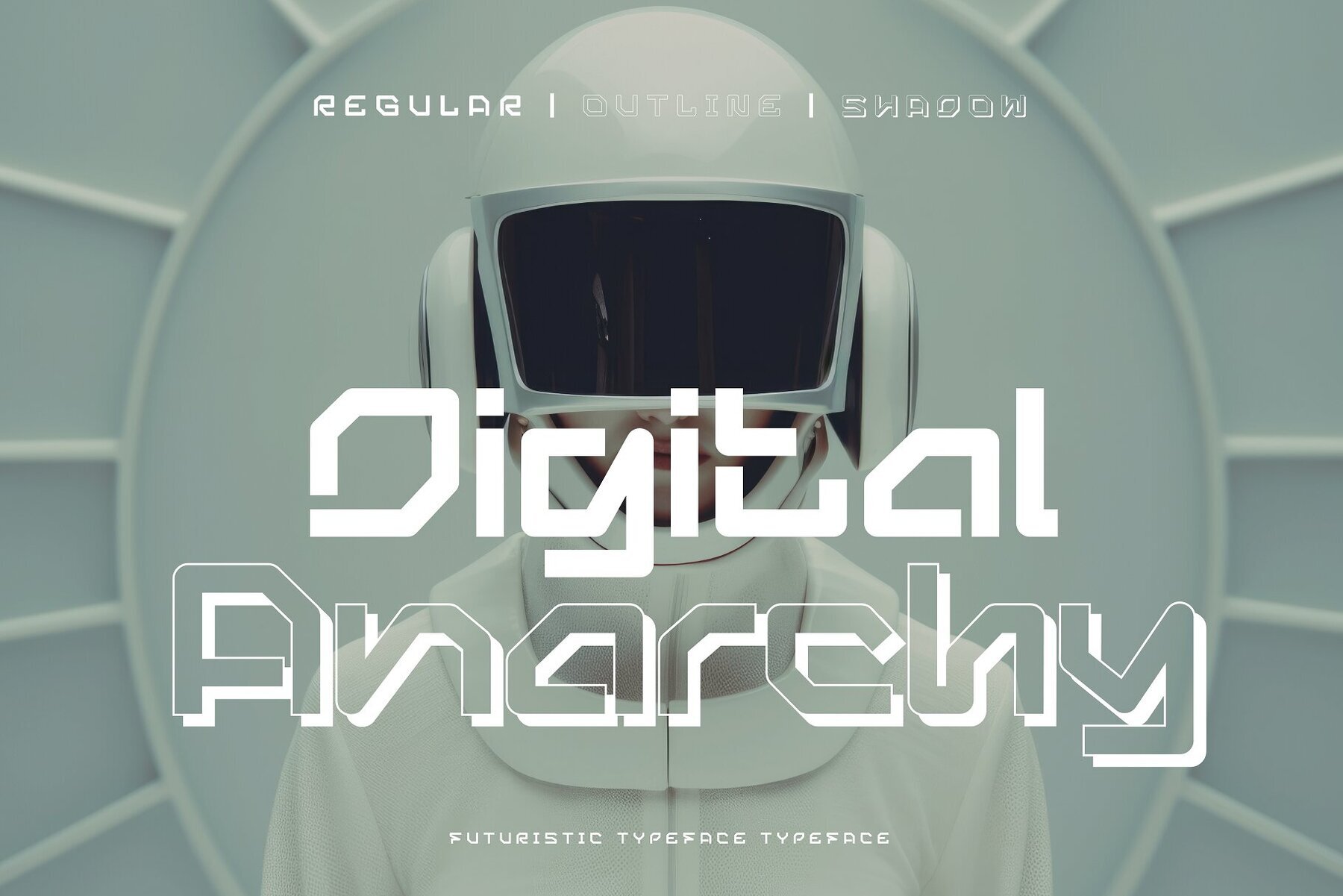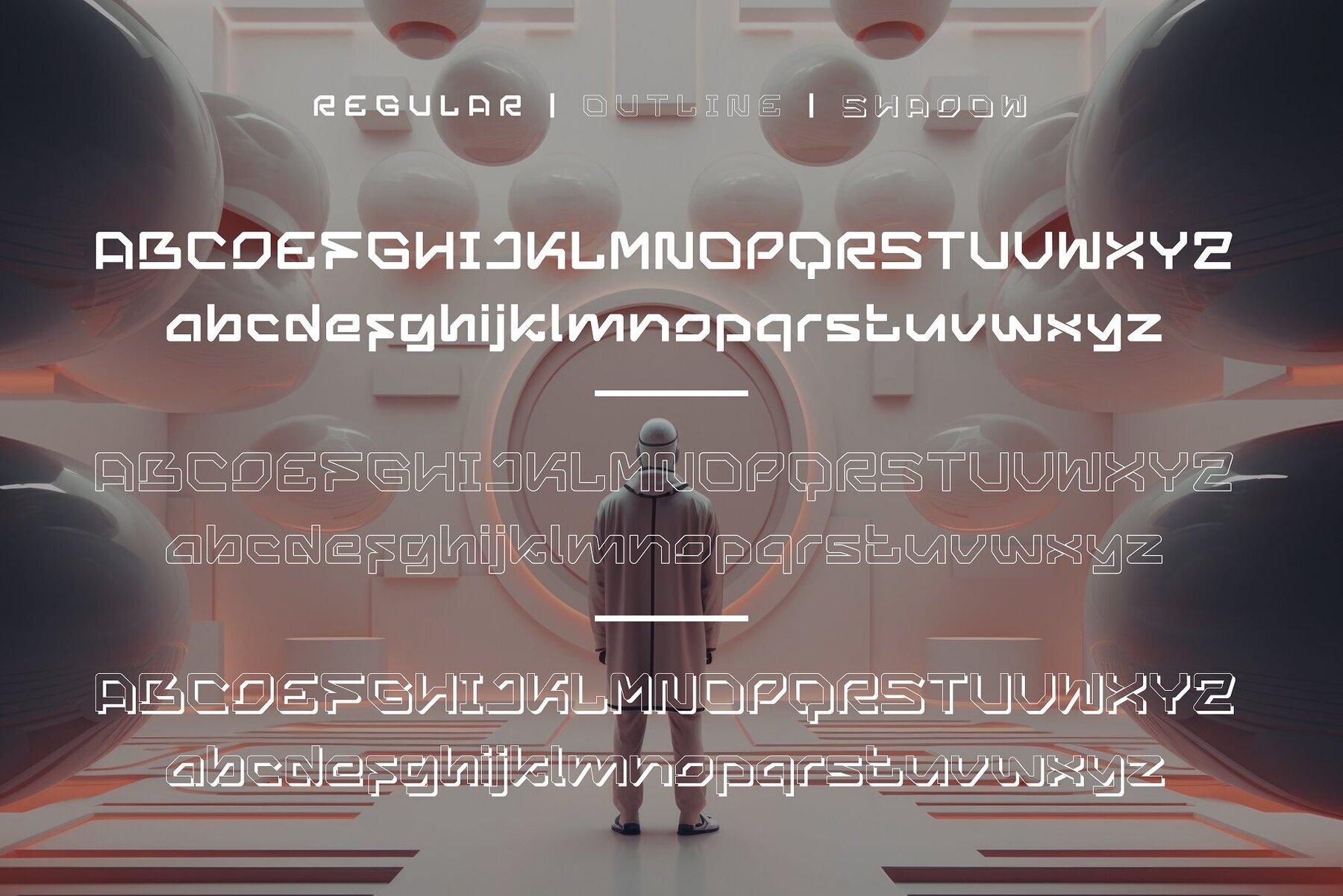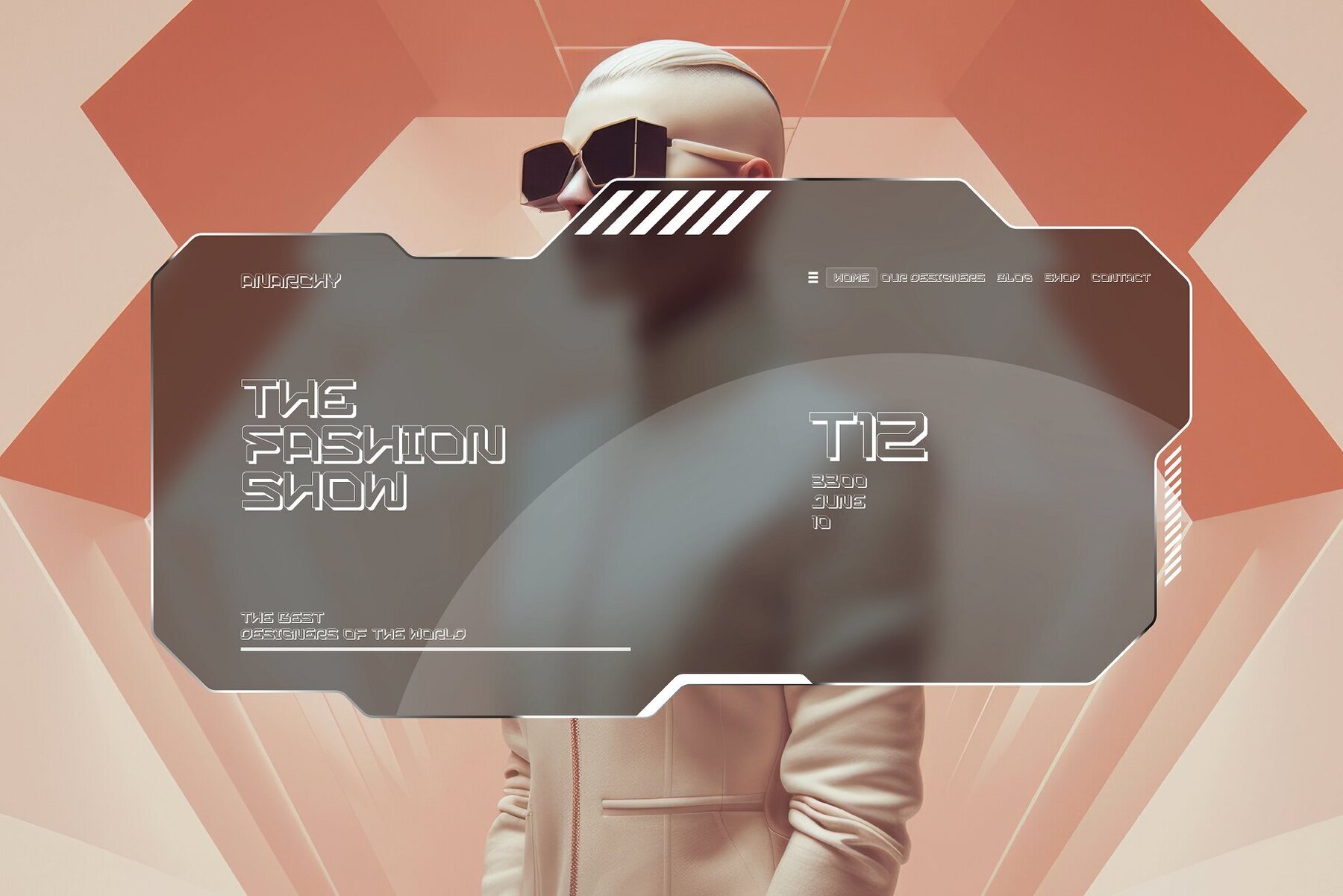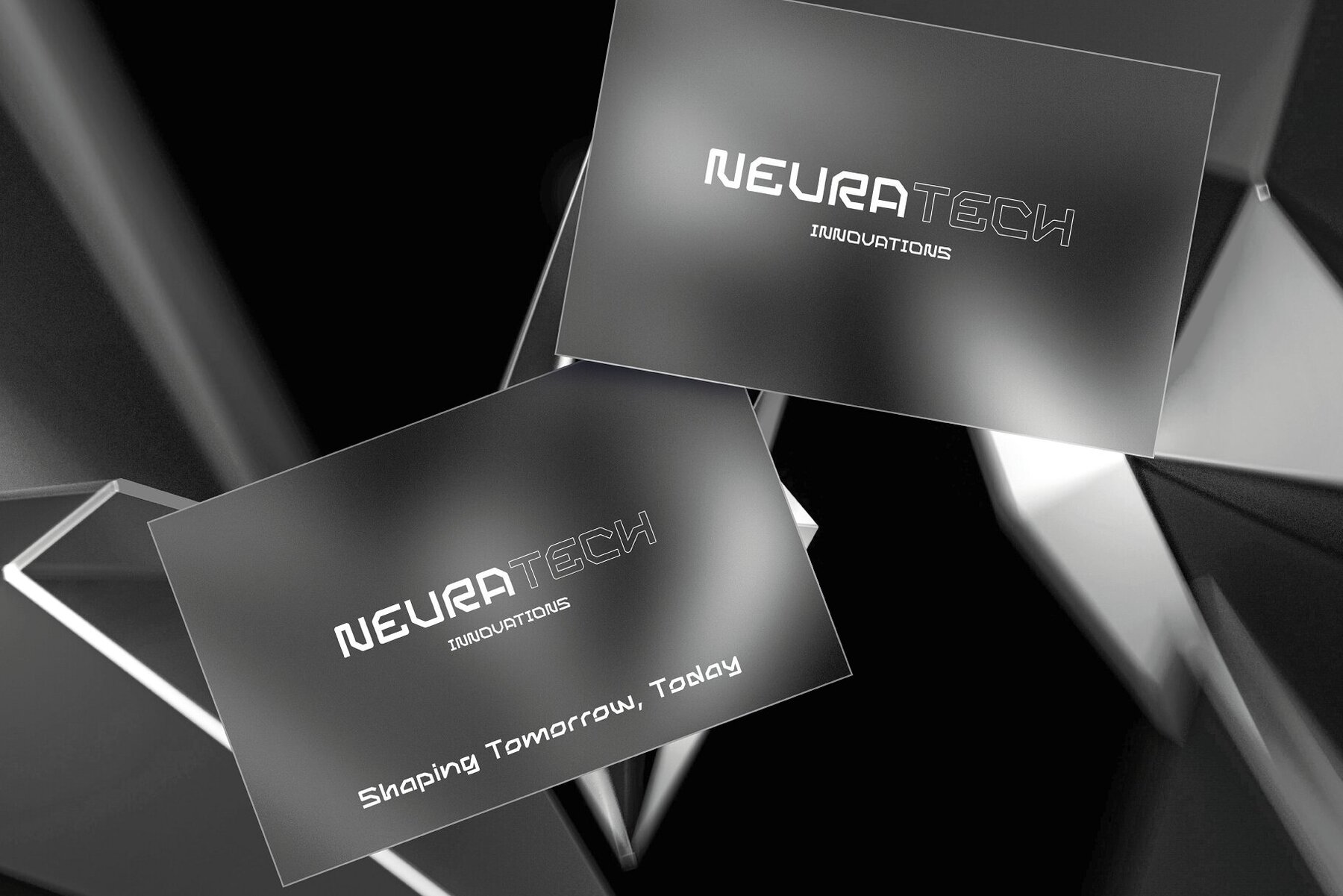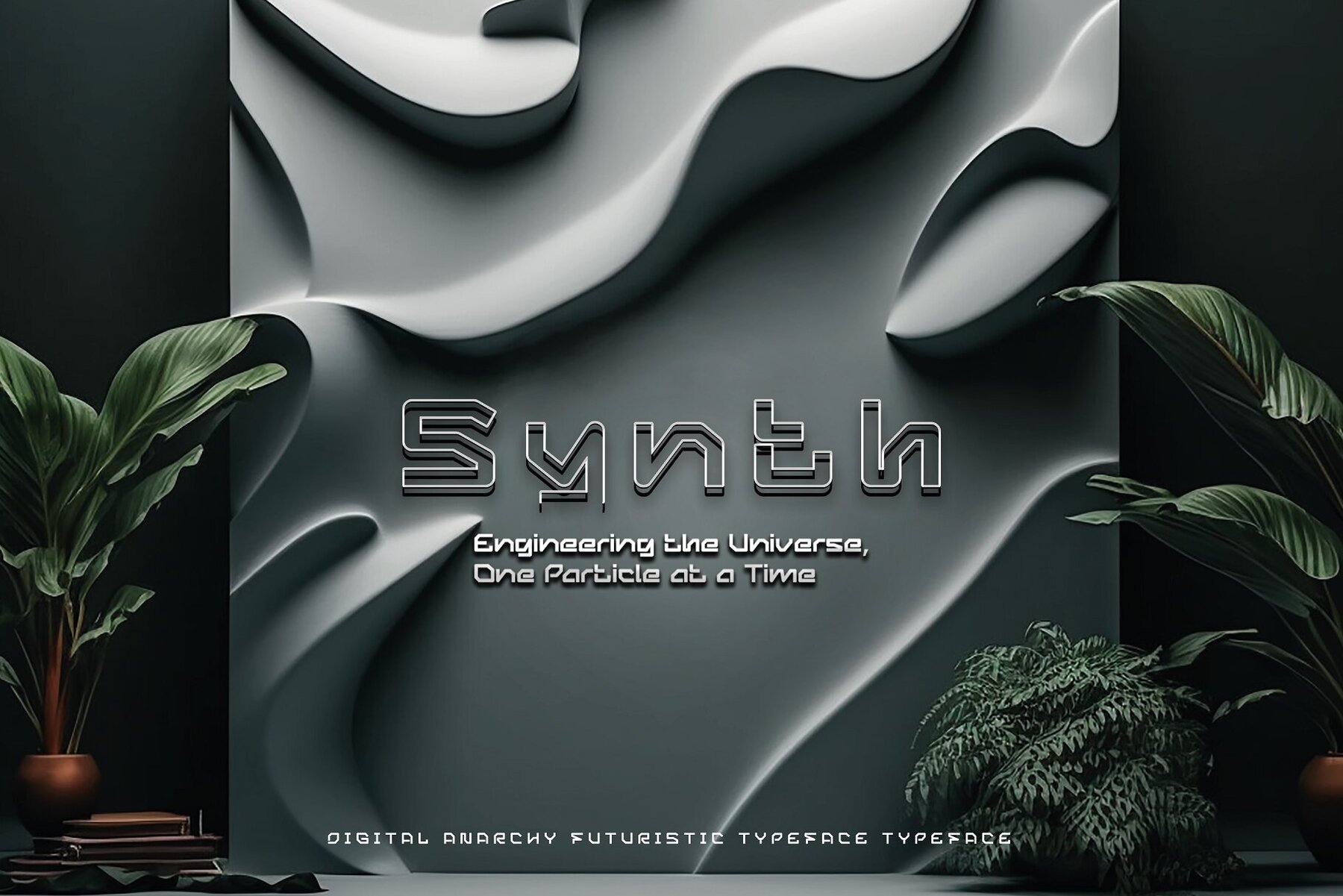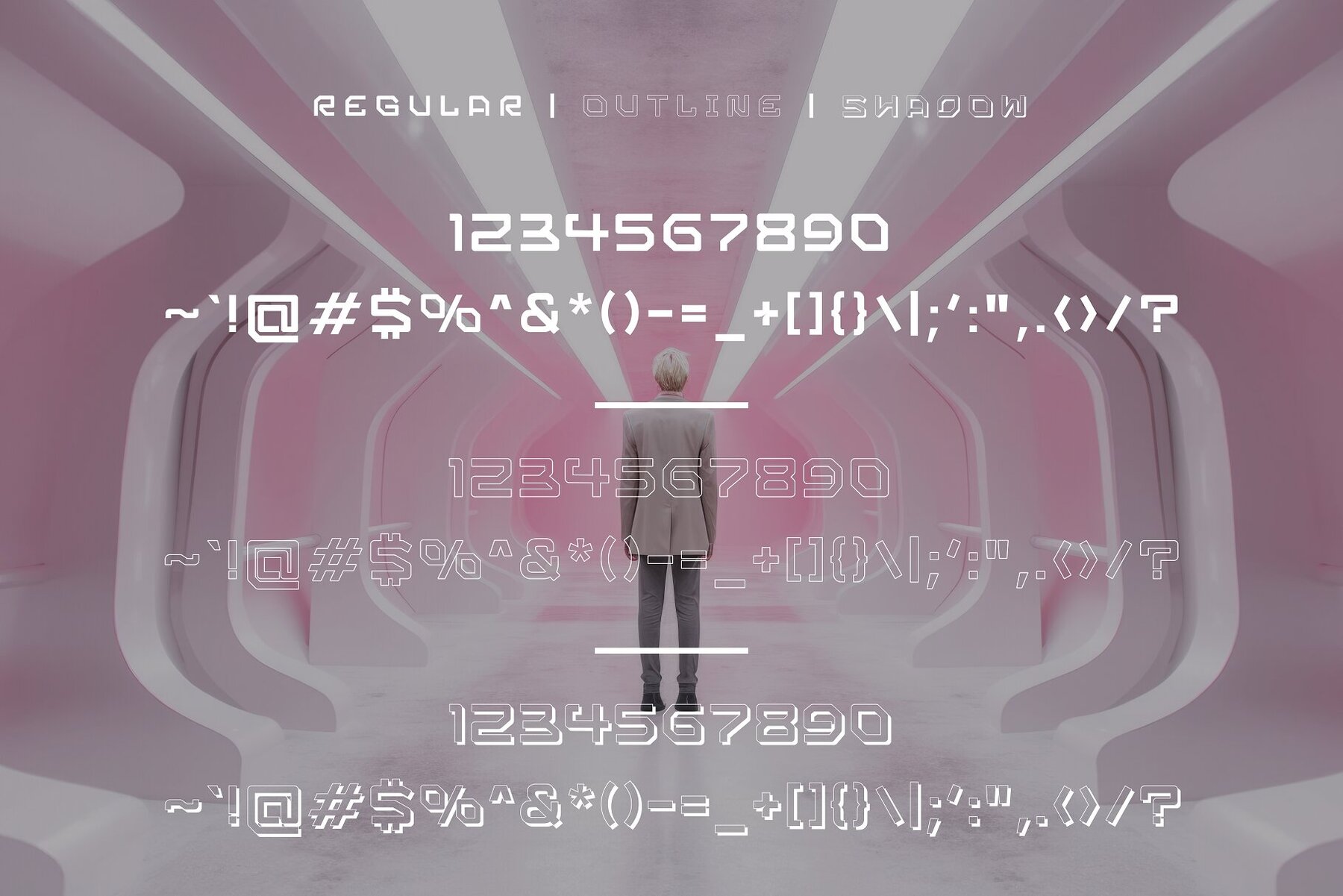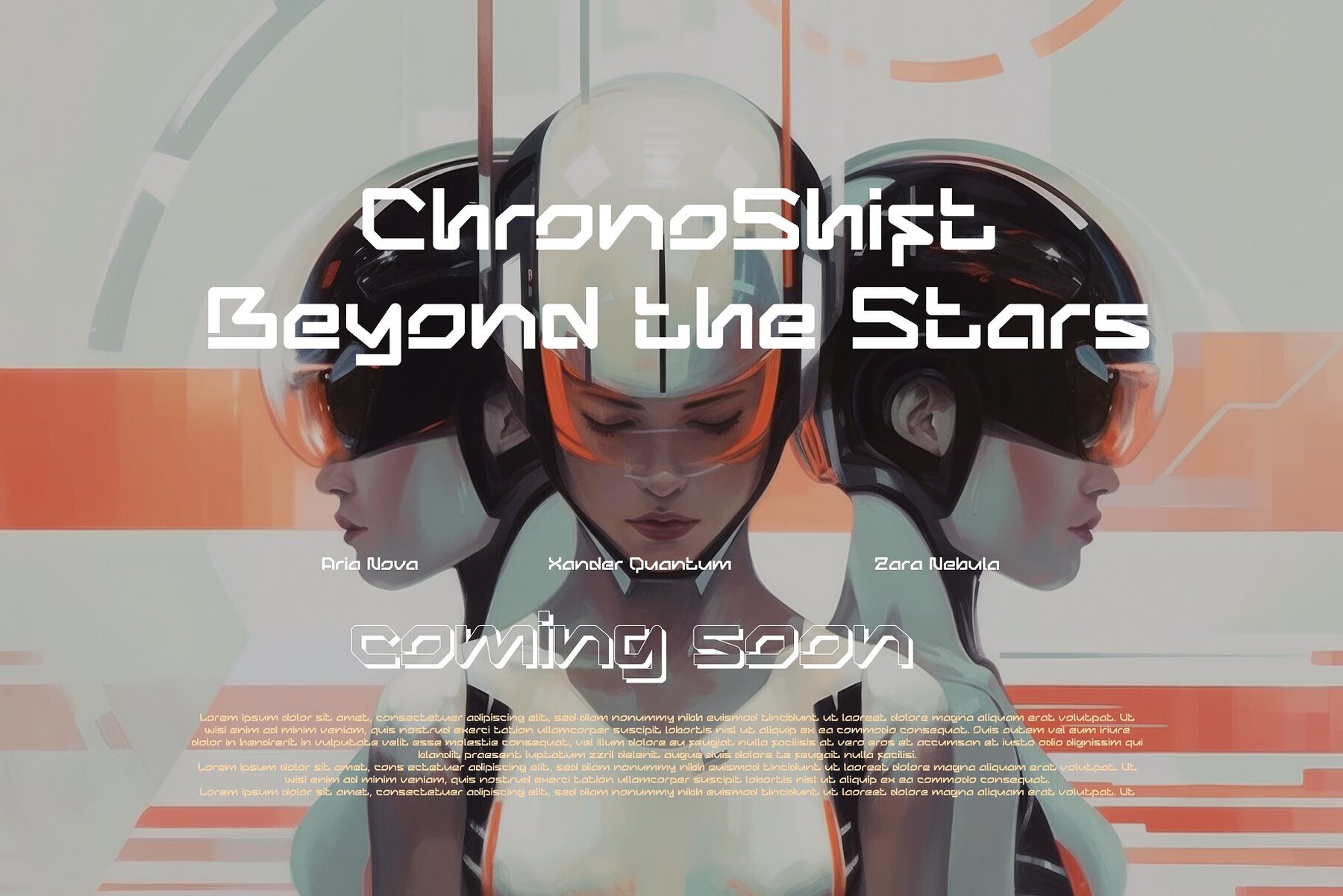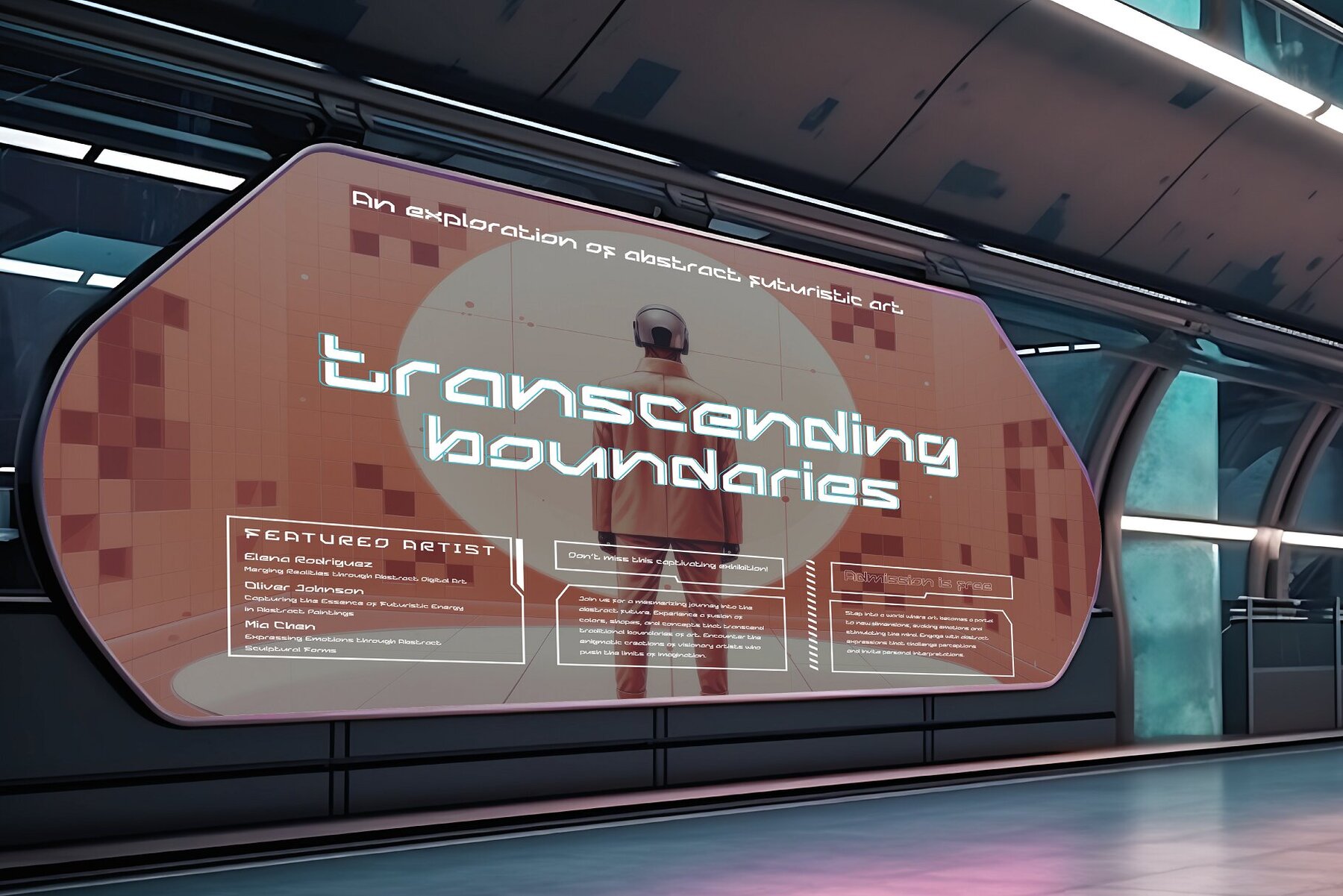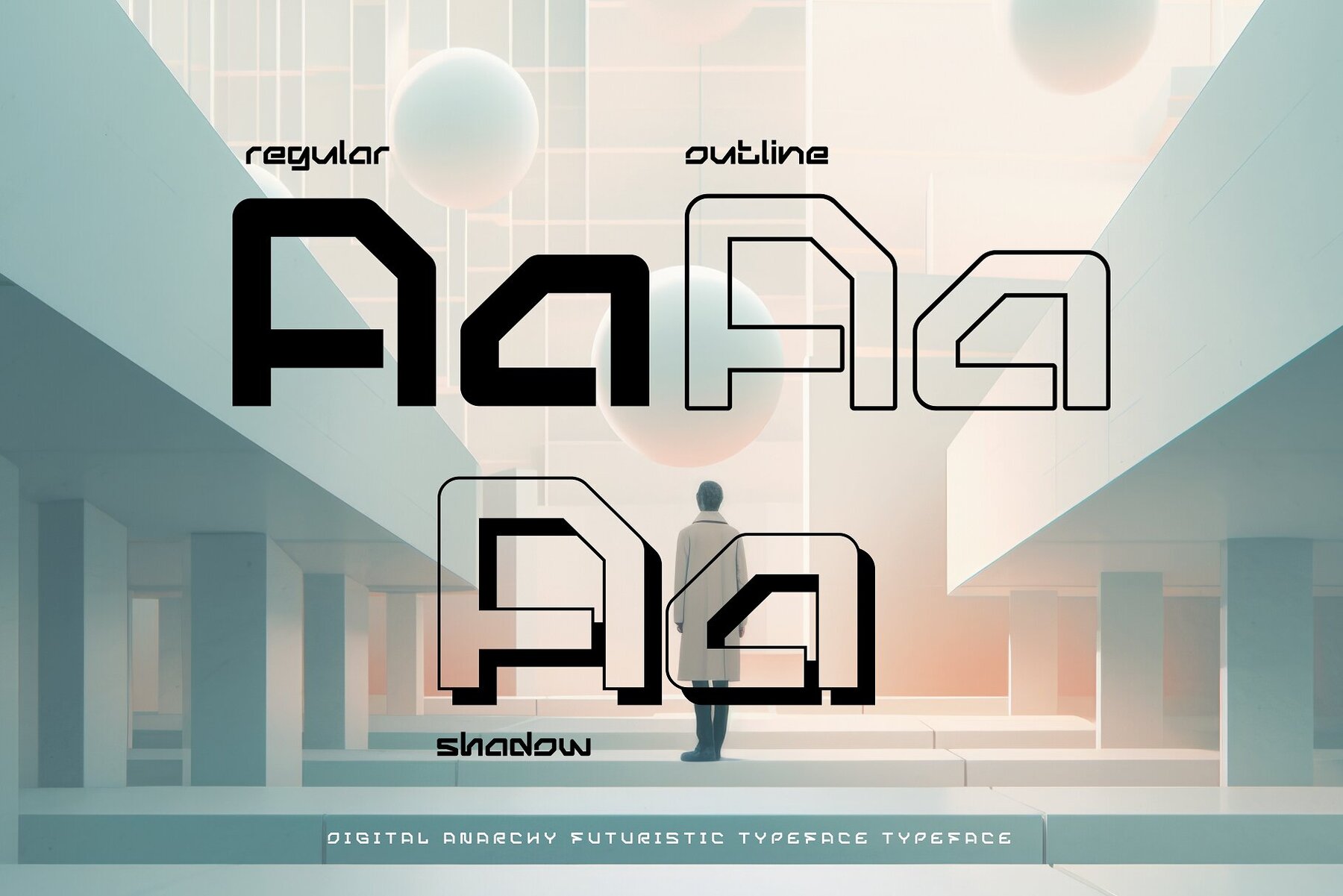
Digital Anarchy Font
Step into the future with Digital Anarchy! This typeface is a revolutionary blend of sleek design and avant-garde aesthetics, channeling a world where technology reigns supreme. With its razor-sharp edges and a design that looks ahead to the digital horizon, Digital Anarchy is perfect for visionary projects that aim to break boundaries and redefine norms. Whether you’re crafting a futuristic game interface, an innovative app, or just aiming to give your graphics a forward-thinking edge, Digital Anarchy will ensure you stand out in a digital age. Embrace the chaos, design the future with Digital Anarchy!